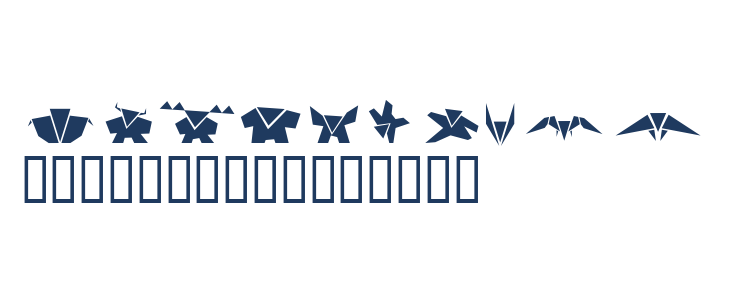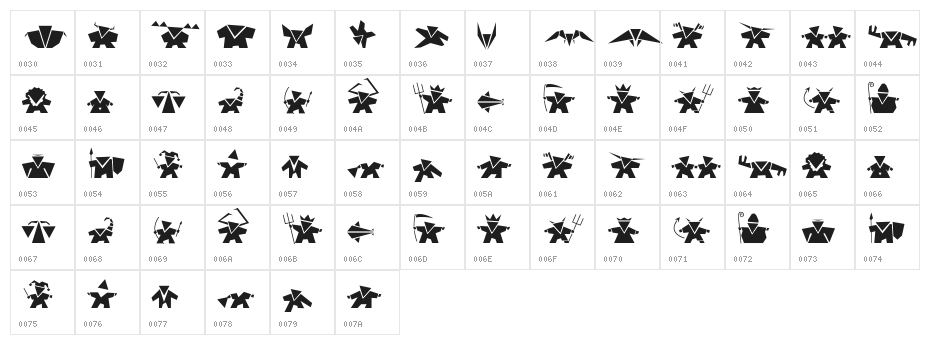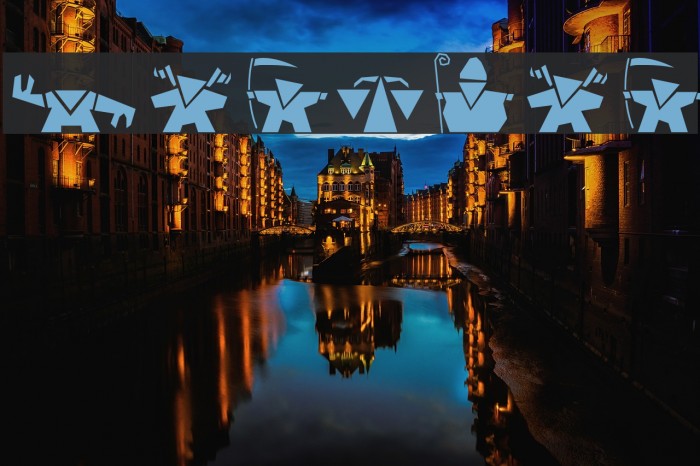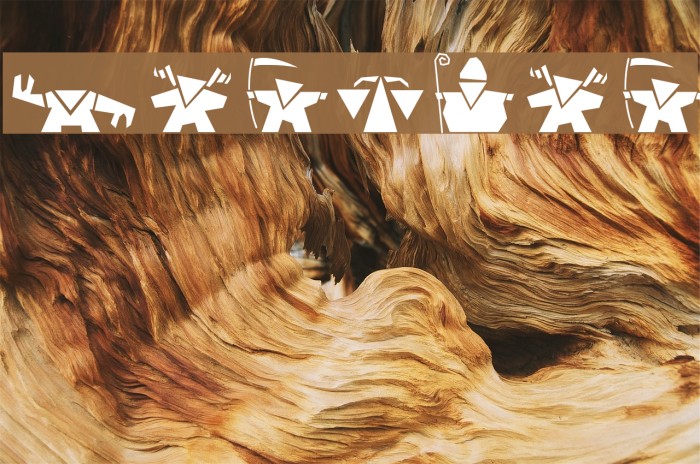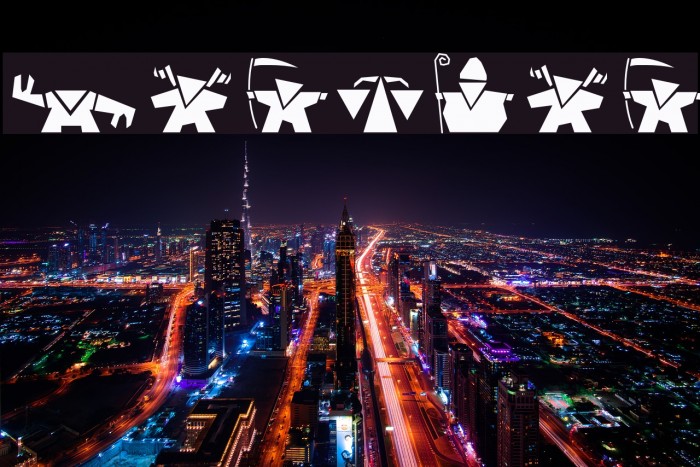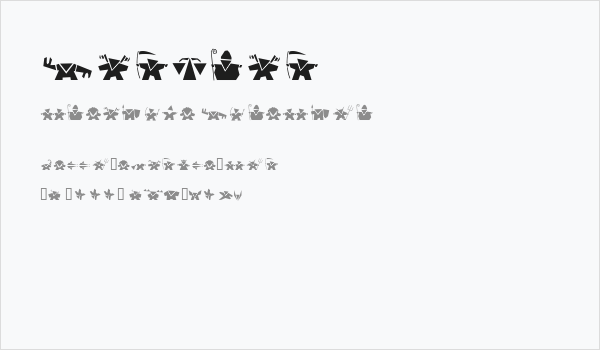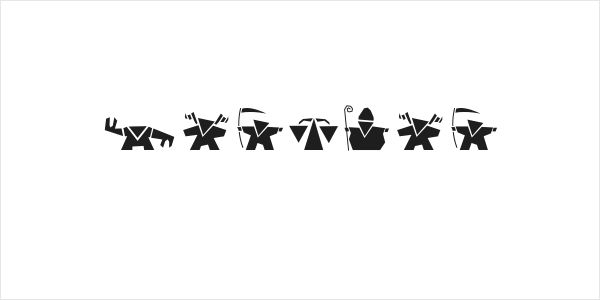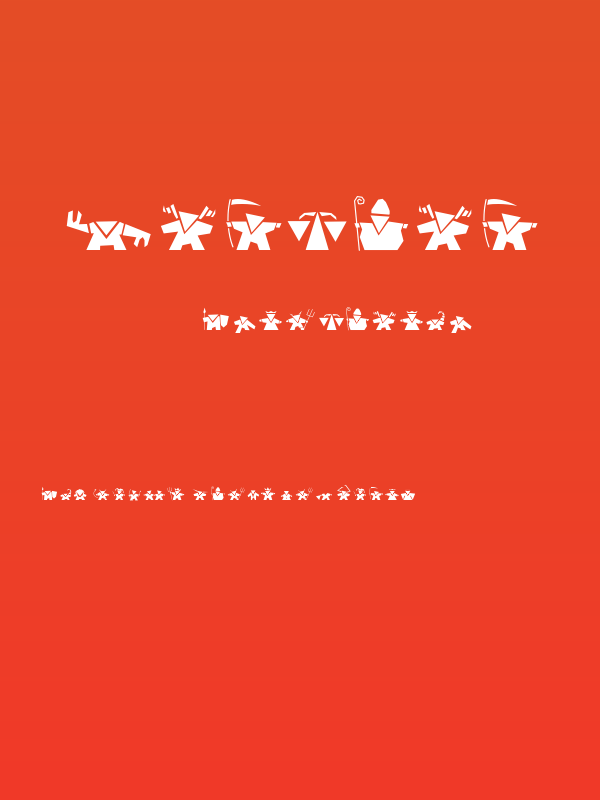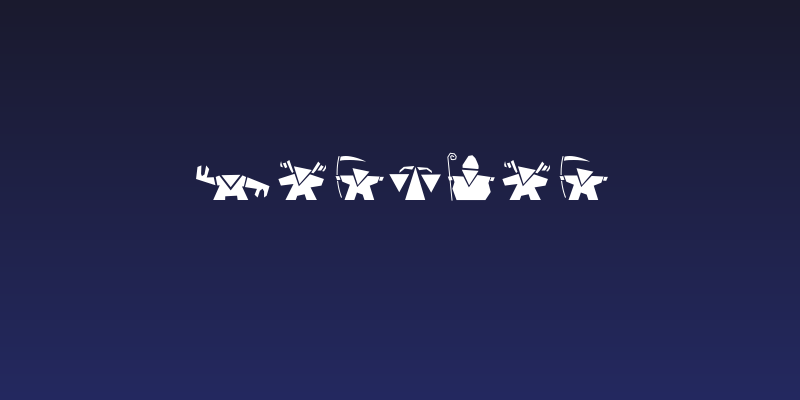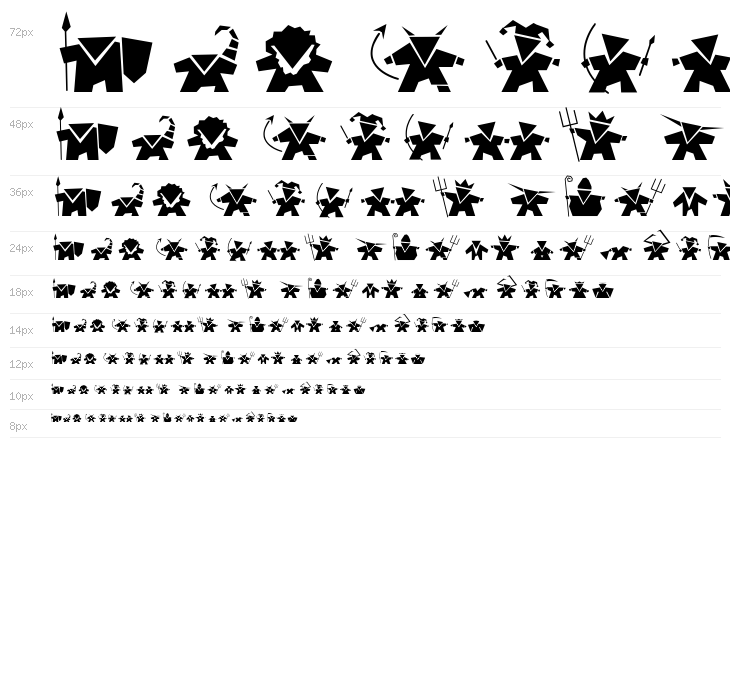
Damgram Font
Damgram Description
This font is a highly decorative and abstract representation of characters, where each letter and symbol is creatively transformed into a unique geometric or pictorial form. The characters are composed of bold, solid shapes that resemble origami or abstract art, giving the font a playful and artistic appearance. The design is consistent across all characters, maintaining a uniform style that is both eye-catching and unconventional. The font lacks traditional readability, making it more suitable for artistic or thematic projects rather than standard text applications.
| Use Case | Logos, Posters, Artistic projects |
| Proposed Projects | Ideal for artistic projects, posters, creative branding, and thematic designs where a unique and abstract visual is desired. |